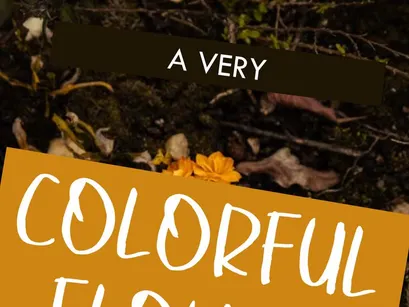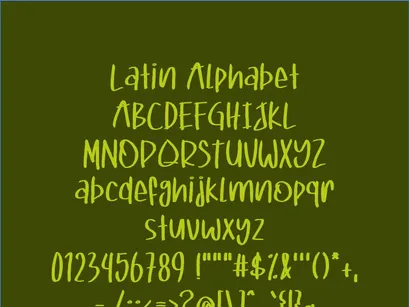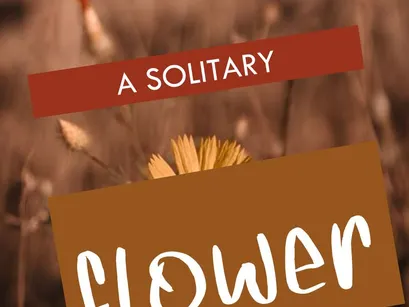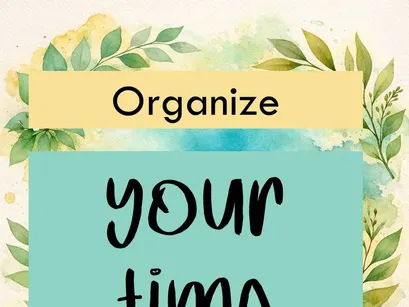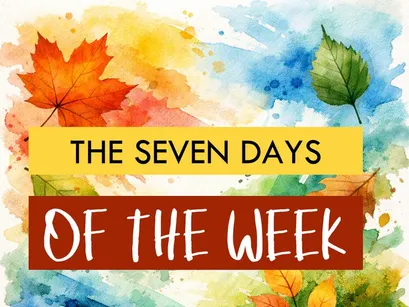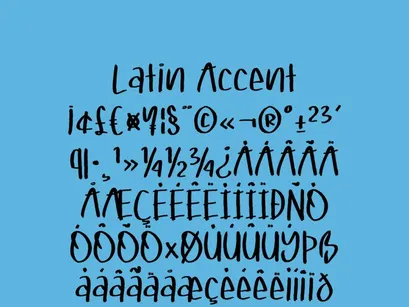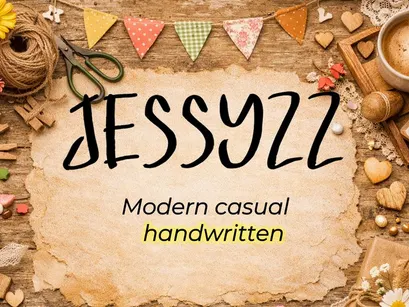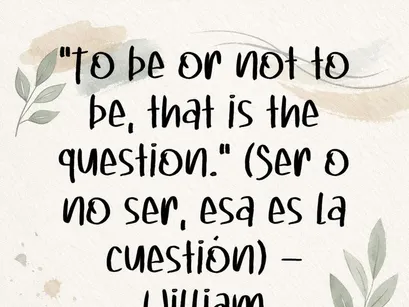
JESSYZZ is a modern, casual handwritten typeface created with natural strokes and a fluid style that reflects the warmth of handcrafted work.
Its design blends spontaneity with elegance, making it ideal for creative projects such as journals, planners, covers, artistic branding, invitations, and digital content.
Full Latin alphabet (uppercase and lowercase)
Accented characters and basic symbols
💛 Inspired by hand-lettering, JESSYZZ adds personality and a personal touch to any design—perfect for those seeking a modern style with a handcrafted feel.